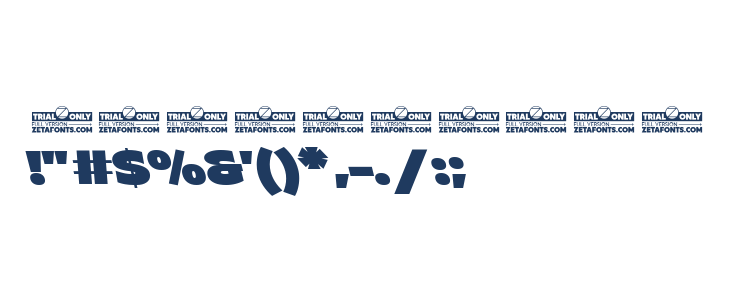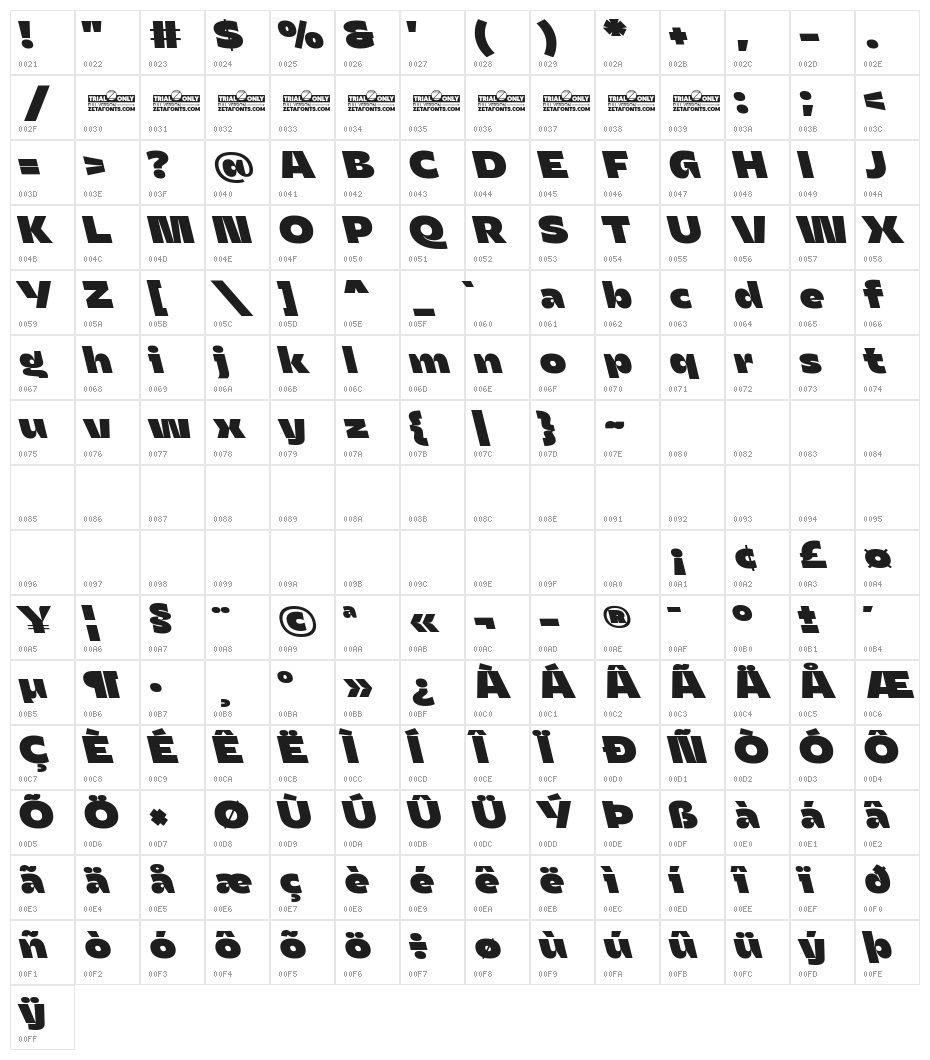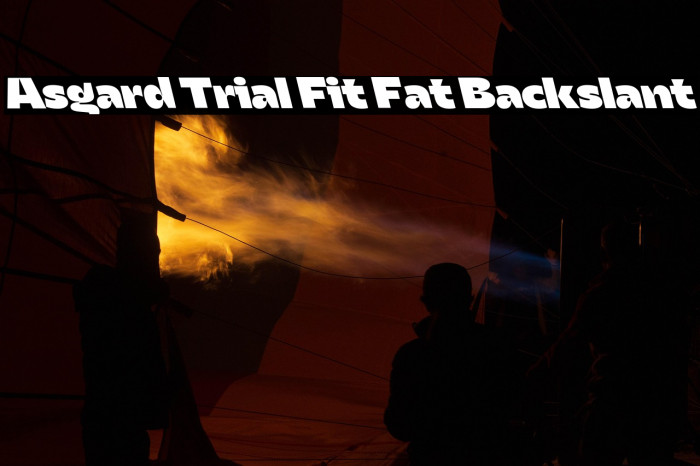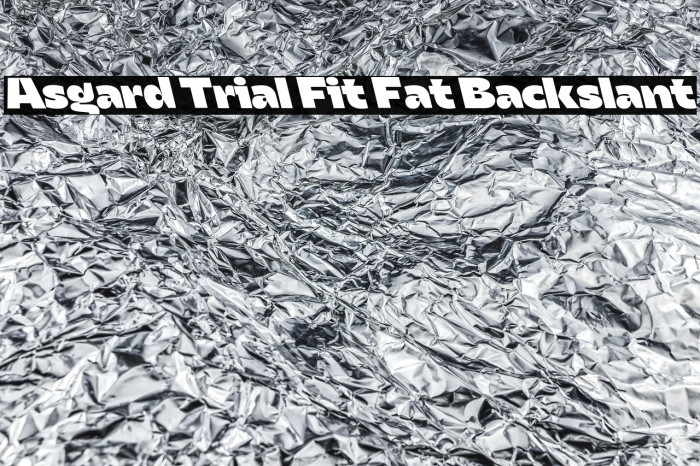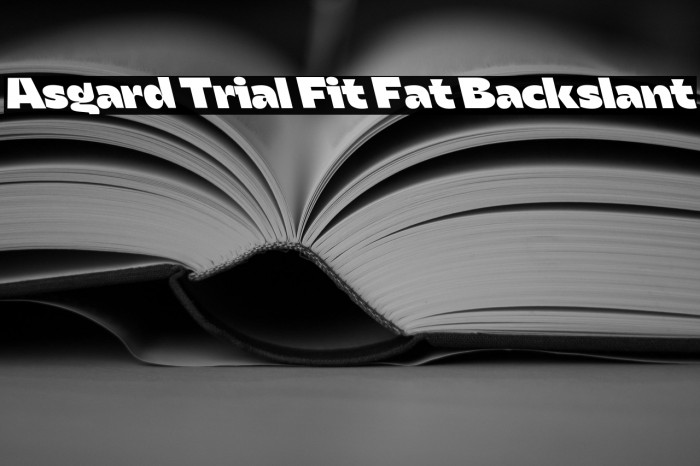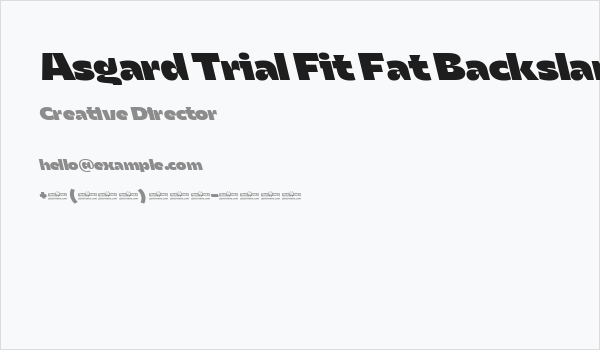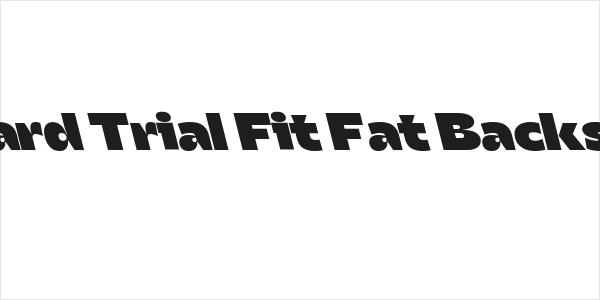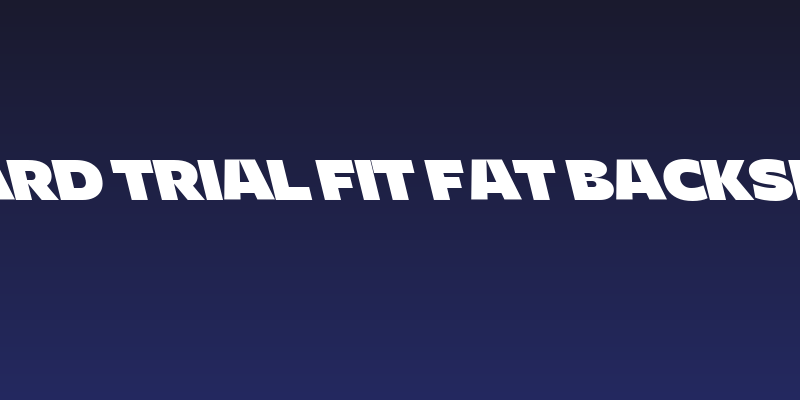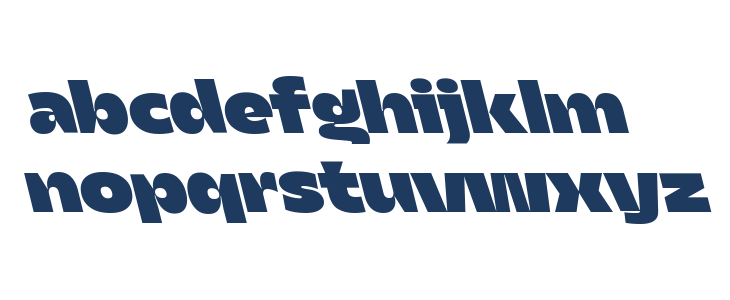
Asgard Trial Fit Fat Backslant Font
Asgard Trial Fit Fat Backslant Description
This font features a bold and dynamic style with a distinctive backslant, giving it a sense of movement and energy. The characters are thick and robust, with a slightly condensed width that enhances their impact. The uppercase and lowercase letters maintain a consistent weight, providing a cohesive look across the alphabet. The special characters are equally bold, ensuring they stand out effectively. This font's strong presence makes it ideal for attention-grabbing designs.
| Proposed Projects | Ideal for posters, headlines, branding, and any design requiring a strong visual impact. |